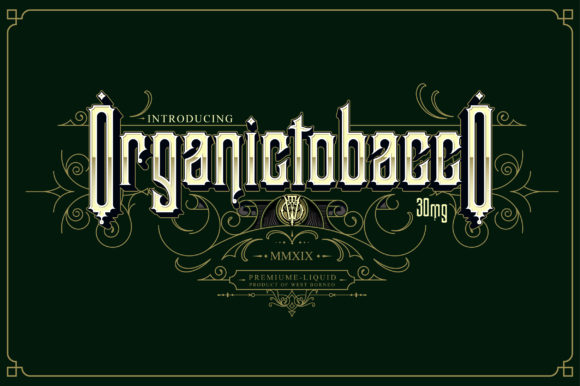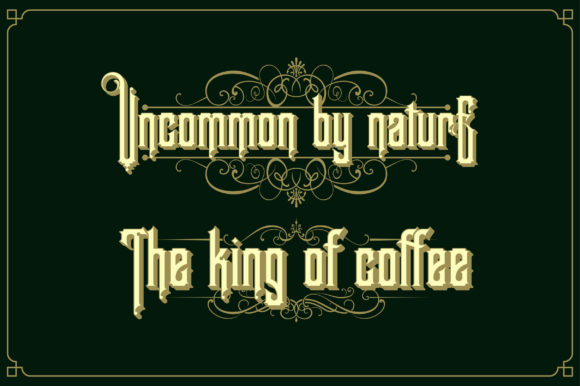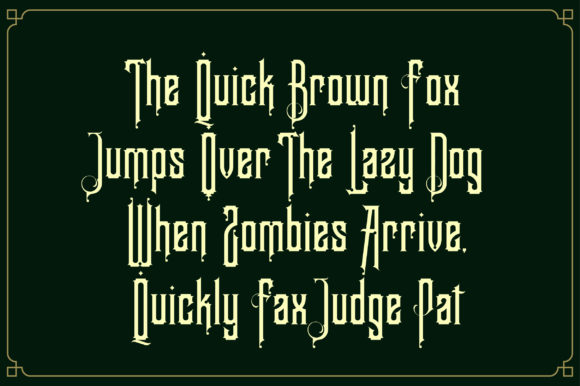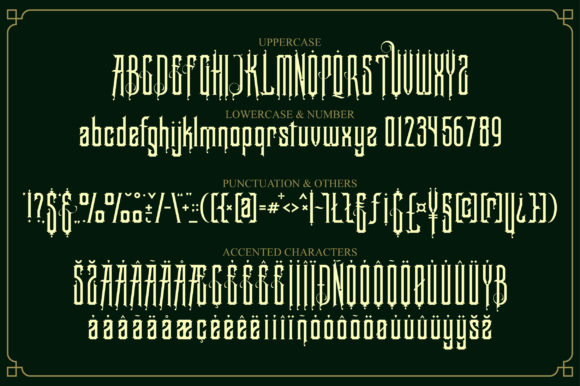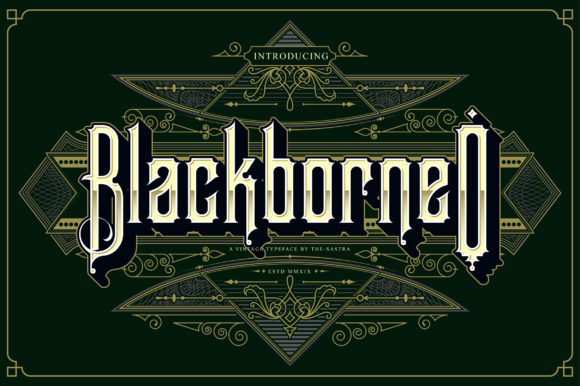
Introducing BlackBorneo Font: A Rich and Bold Display Font with a Modern Twist
In the world of typography, fonts play a crucial role in conveying the tone and personality of a brand or design project. For designers and crafters looking for a font that exudes confidence, sophistication, and creativity, BlackBorneo Font is an excellent choice. This rich and bold display font boasts distinct characteristics that set it apart from other fonts, making it a versatile addition to any design project.
The Unique Characteristics of BlackBorneo Font
BlackBorneo Font is a masterful blend of vintage and modern elements, carefully crafted to create a unique visual identity. Its bold and rich texture gives it a luxurious feel, perfect for designs that require a touch of sophistication. The font’s distinct characteristics include:
- Bold and Rich Texture: BlackBorneo Font features a bold and rich texture that gives it a luxurious feel, making it perfect for designs that require a touch of sophistication.
- Vintage Feel with a Modern Twist: The font’s vintage roots are updated with a modern twist, making it a versatile font for a wide range of design projects.
- Distinct Letterforms: Each letterform in BlackBorneo Font is carefully crafted to create a unique visual identity that sets it apart from other fonts.
Uses of BlackBorneo Font
BlackBorneo Font is a versatile font that can be used in a variety of design projects, including:
- Branding and Logo Design: The font’s bold and luxurious texture makes it perfect for branding and logo design, especially for high-end brands or luxury products.
- Advertising and Marketing Materials: BlackBorneo Font can add a touch of sophistication and creativity to advertising and marketing materials, such as brochures, flyers, and posters.
- Packaging Design: The font’s unique characteristics make it an excellent choice for packaging design, especially for products that require a luxurious and high-end feel.
- Digital Media: BlackBorneo Font can also be used in digital media, such as website headers, social media graphics, and video titles.
Why Choose BlackBorneo Font?
With so many fonts available, why choose BlackBorneo Font? Here are a few reasons why designers and crafters love this font:
- Unique Visual Identity: BlackBorneo Font offers a unique visual identity that sets it apart from other fonts, making it perfect for designers looking for a distinctive look.
- Versatility: The font’s versatility makes it suitable for a wide range of design projects, from branding and advertising to packaging and digital media.
- Easy to Read: Despite its bold texture, BlackBorneo Font is easy to read, making it perfect for designs that require a clear and concise message.
Tips for Using BlackBorneo Font
To get the most out of BlackBorneo Font, here are a few tips to keep in mind:
- Use it Sparingly: Due to its bold texture, BlackBorneo Font is best used sparingly to avoid overwhelming the design.
- Pair it with Other Fonts: The font pairs well with other fonts, especially sans-serif fonts, to create a balanced and harmonious design.
- Experiment with Colors: BlackBorneo Font looks great in a variety of colors, so don’t be afraid to experiment and find the perfect color scheme for your design.
In conclusion, BlackBorneo Font is a rich and bold display font that offers a unique visual identity, versatility, and ease of use. Its distinct characteristics, including its bold and rich texture, vintage feel with a modern twist, and distinct letterforms, make it a valuable addition to any design project. Whether you’re a designer or crafter looking for a font that exudes confidence, sophistication, and creativity, BlackBorneo Font is an excellent choice.